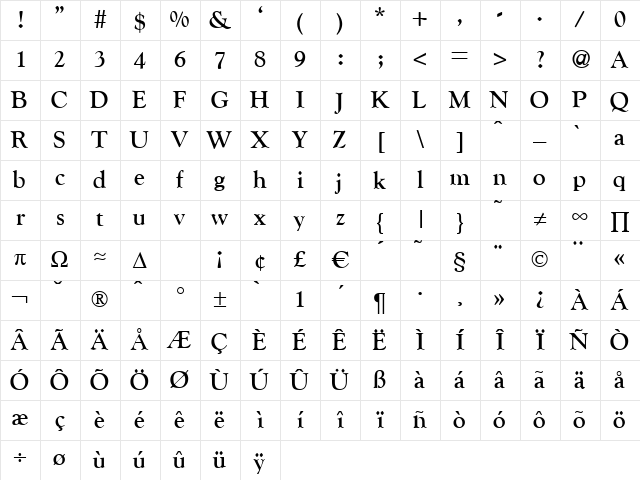
GoudyOldStyleTwo Bold
GoudyOldStyleTwo Family
Design Context for GoudyOldStyleTwo
GoudyOldStyleTwo carries the refined structure of traditional serif typography, with bracketed terminals and considered proportions that communicate credibility and craft. Its bold stroke weight gives it real presence on the page.
Pro Tip: Use GoudyOldStyleTwo for editorial body copy and considered headline work. Pair with a neutral sans for UI elements or captions to create a classic hierarchy.